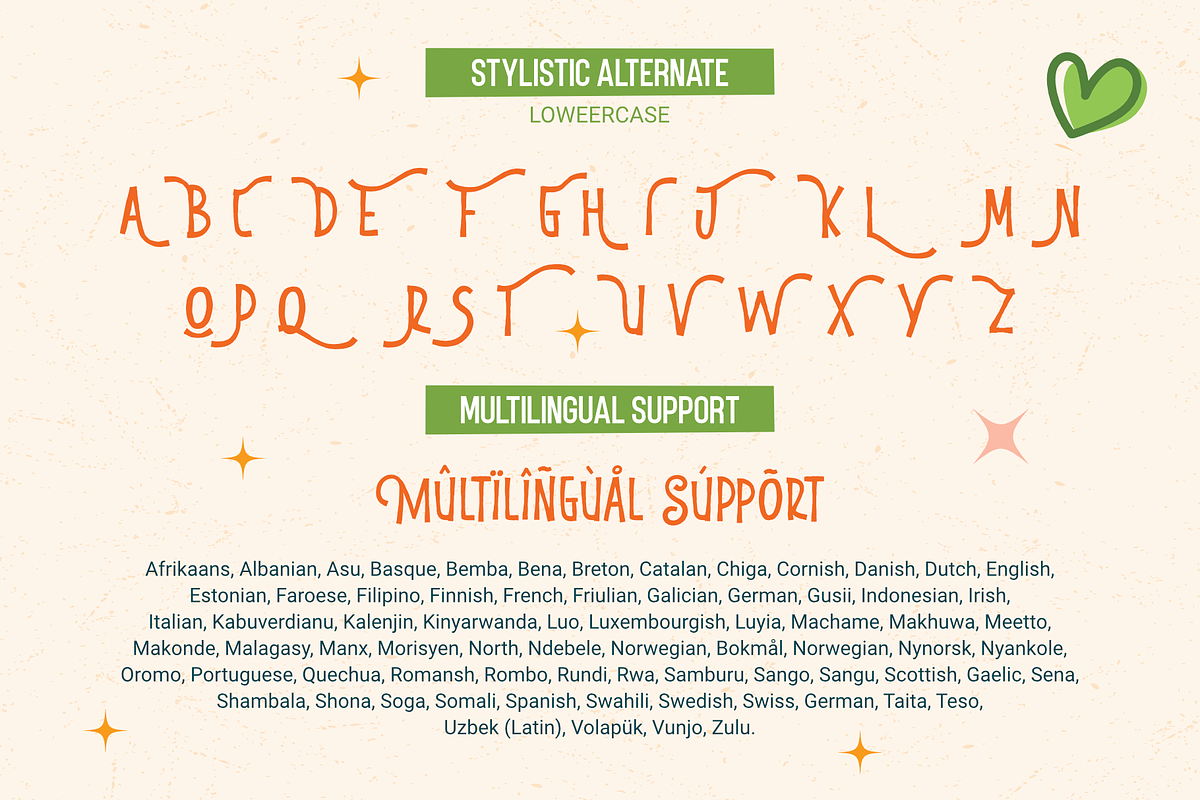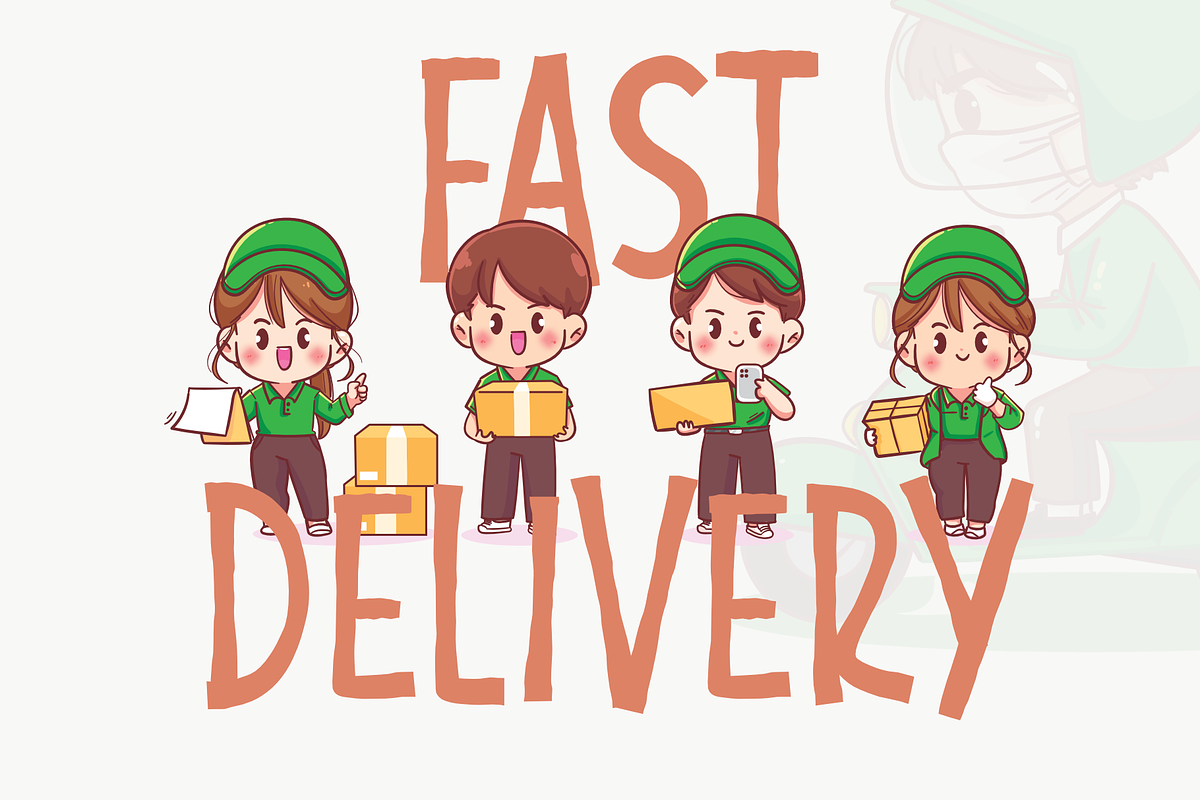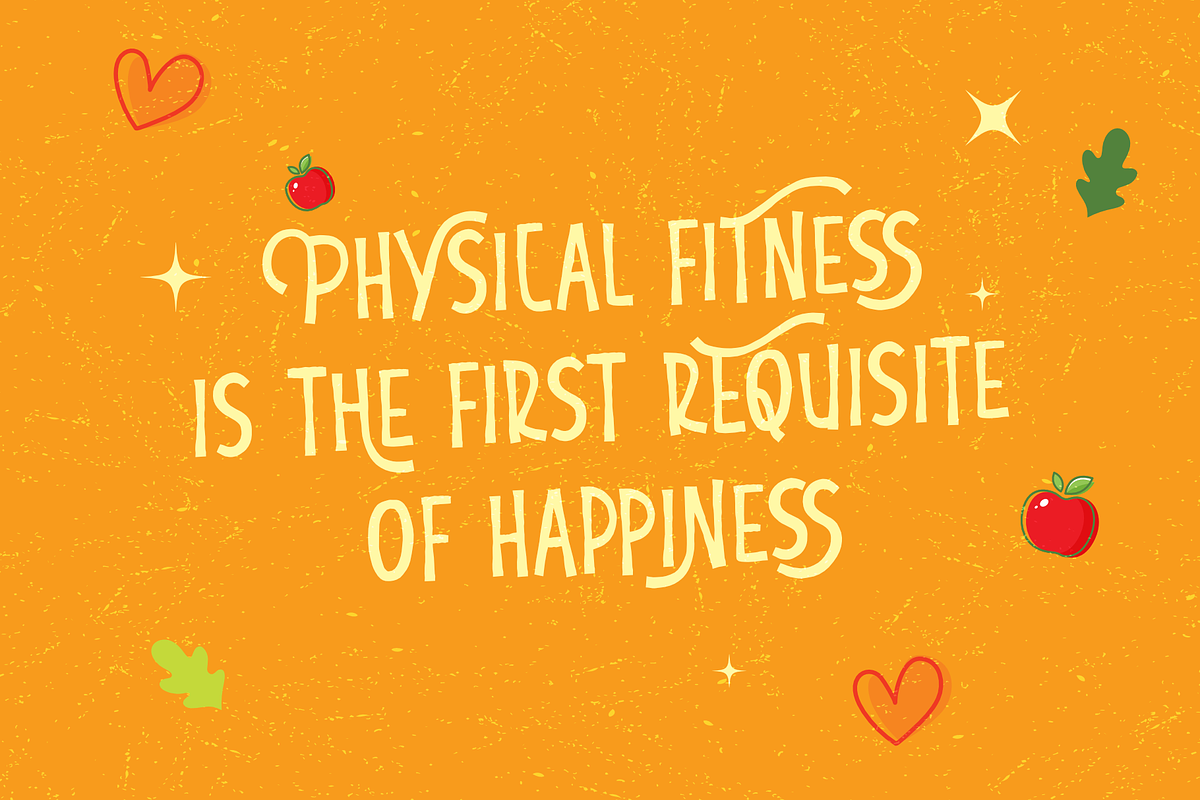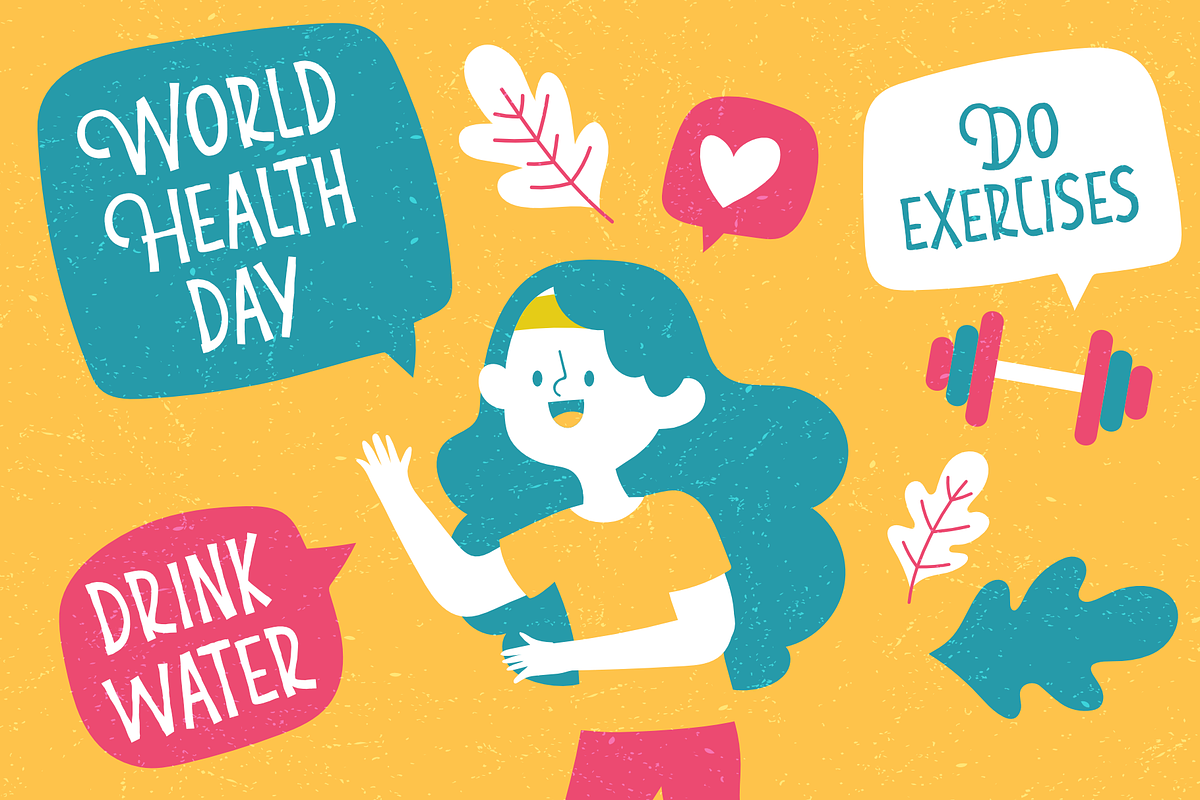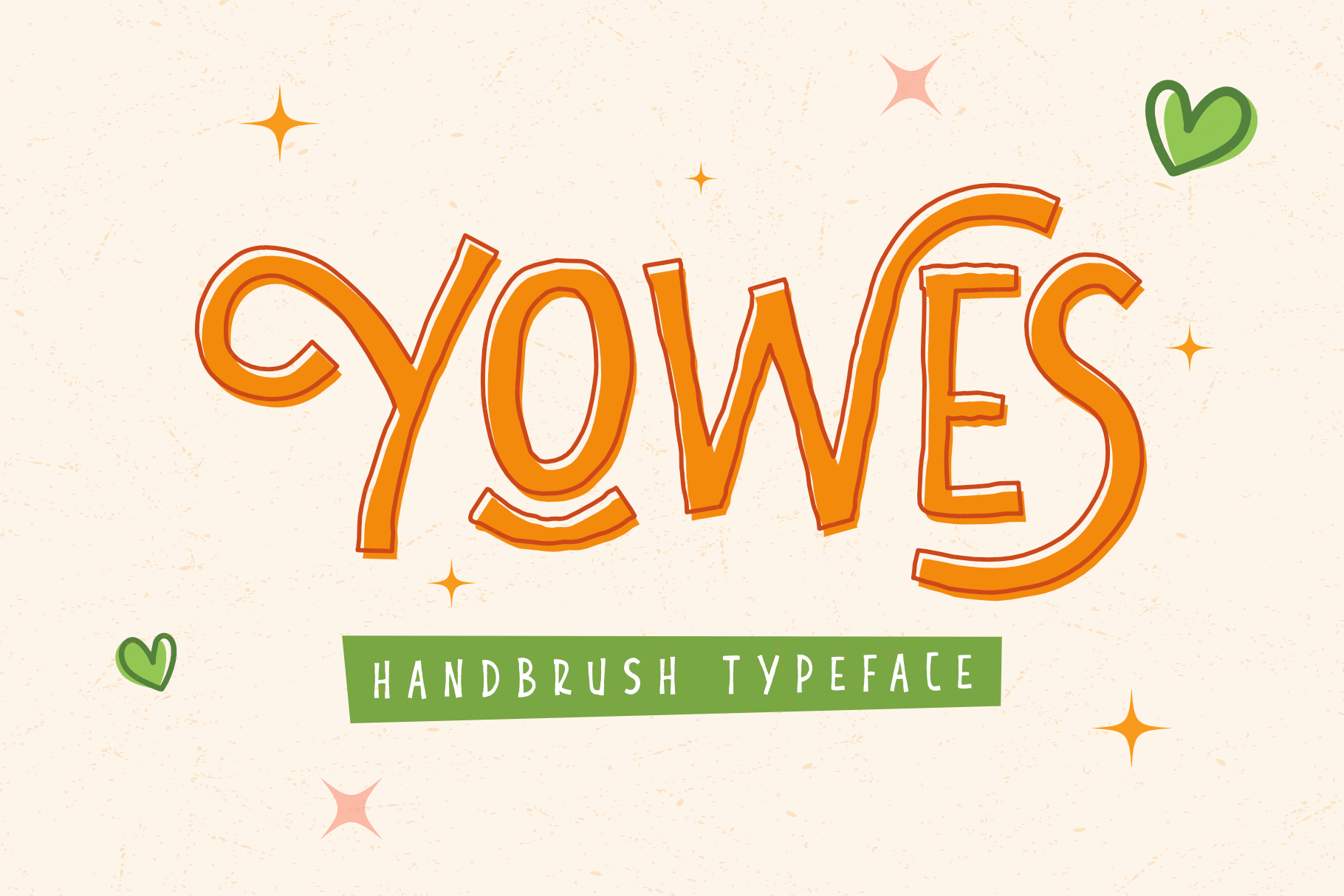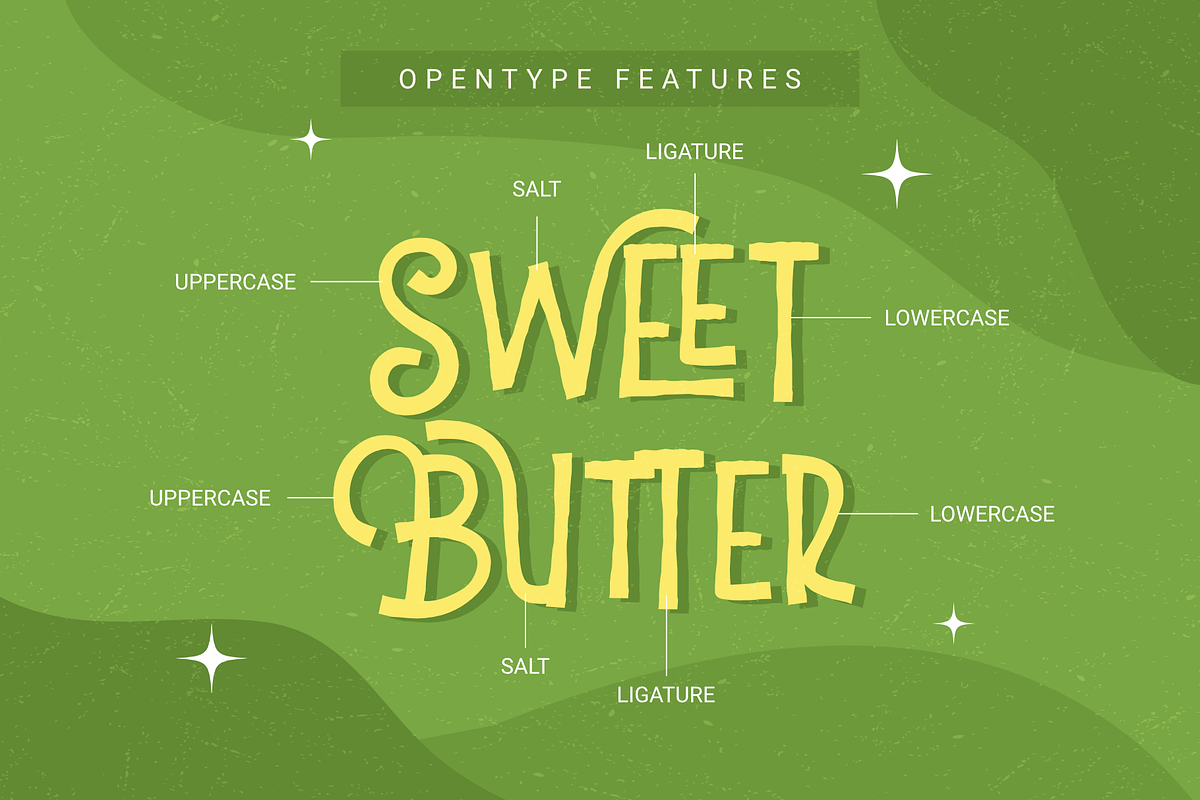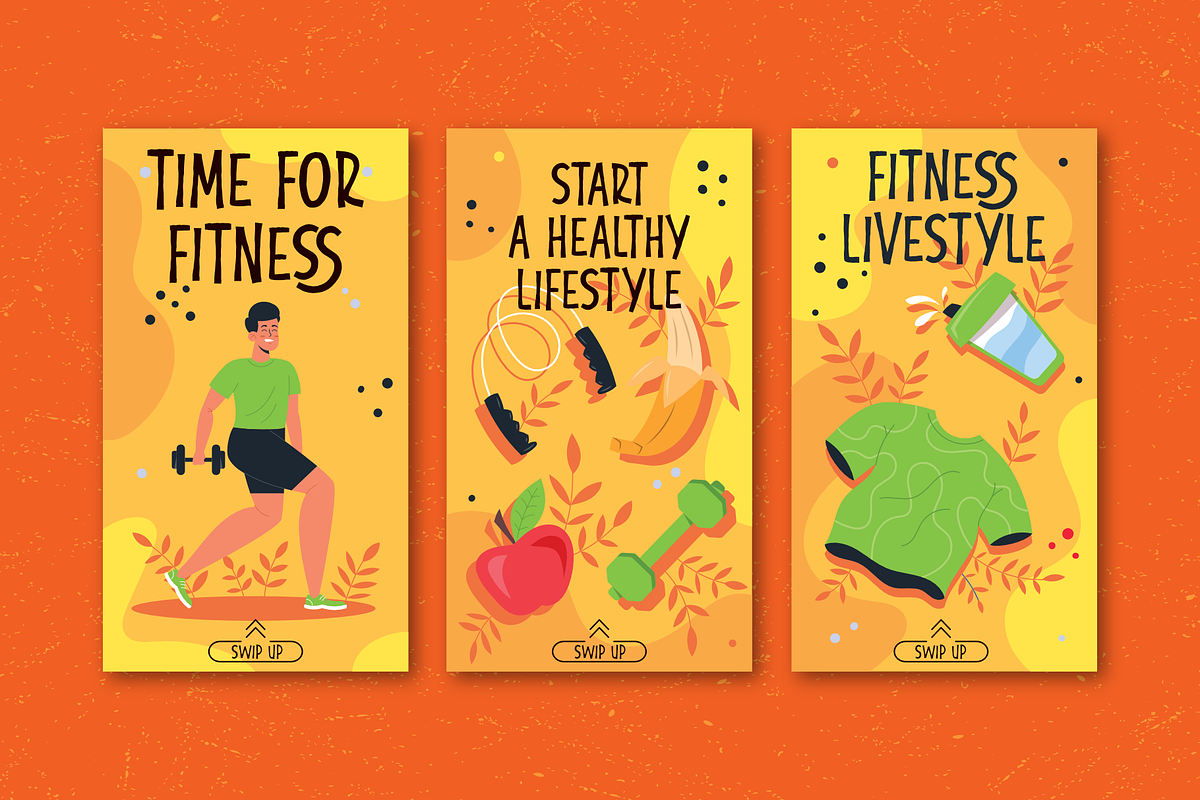
Yowes - Handbrush Typeface
Introducing Yowes! Yowes is a free, casual, and colorful hand brush typeface font. Yowes is a hand brush logo-type font created to make your product display more dynamic, cheerful, and fun.
Yowes is a childish yet elegant font made perfect for any product display, social media content, youtube for kids video titles, or children's book cover. Yowes is purely made for any light-hearted design that will spread happy vibes. Just like its name, Yowes!
- Style Alternate
- Multilingual Accent